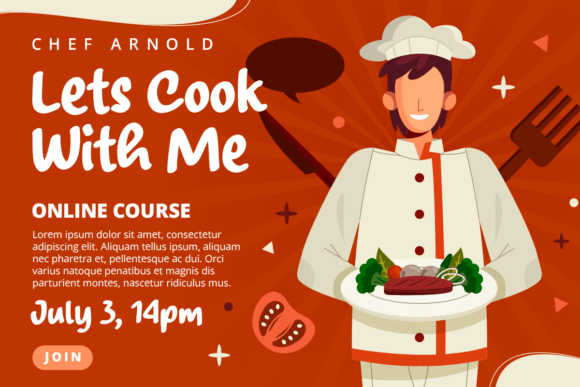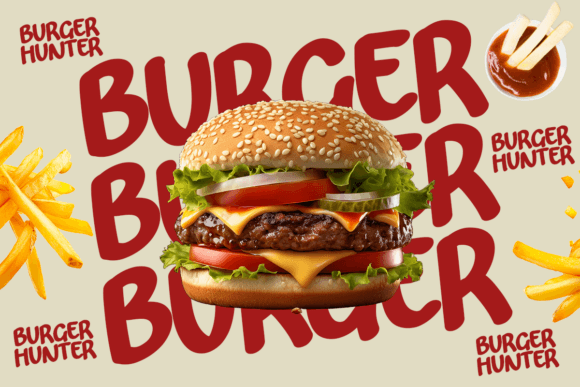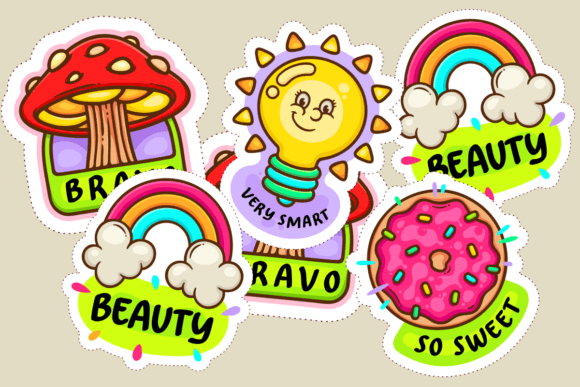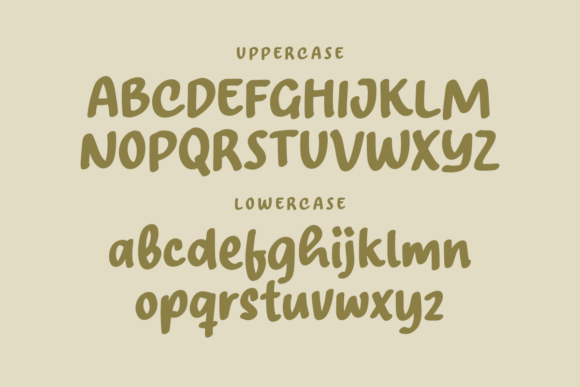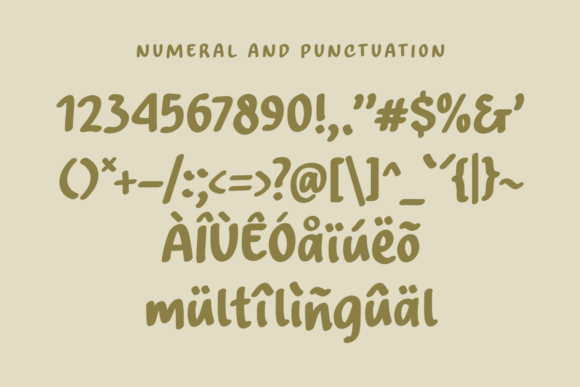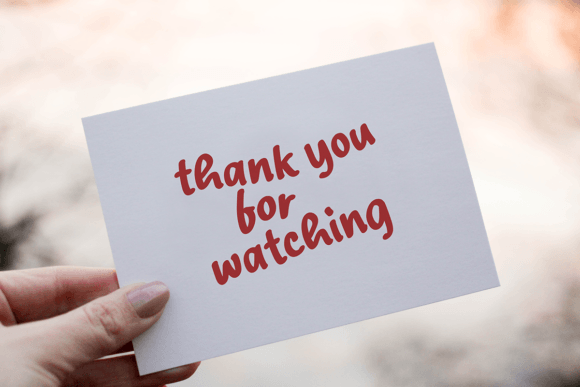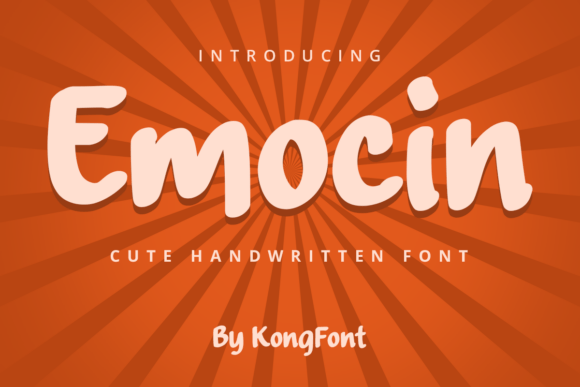
Introducing Emocin Font: A Stylish and Nostalgic Typeface for Retro-Inspired Designs
Are you a designer or crafter looking for a font that embodies the essence of retro aesthetics? Look no further than Emocin Font, a beautiful and nostalgic typeface that is perfect for creating vintage-themed designs, posters, logos, branding, invitations, and more. With its smooth script style and elegant curves, Emocin Font brings a timeless charm to any project, making it a must-have for anyone who wants to add a touch of nostalgia to their designs.
What is Emocin Font?
Emocin Font, also known as Emocin Script Retro Font, is a stylish and elegant typeface that is inspired by the retro aesthetics of the past. Its smooth script style and flowing curves evoke a sense of nostalgia and sophistication, making it perfect for designs that require a touch of vintage charm. Whether you’re creating a poster, logo, or invitation, Emocin Font is the perfect choice for adding a touch of elegance and sophistication to your design.
Key Features of Emocin Font
Emocin Font comes with a range of features that make it a versatile and practical choice for designers and crafters. Some of its key features include:
- Multilingual Support: Emocin Font supports multiple languages, making it a great choice for designers who work with clients from around the world.
- PUA Encoding: Emocin Font is PUA encoded, which means that you can access all of the cute glyphs and swashes with ease.
- Elegant Curves: Emocin Font features smooth, flowing curves that give it a timeless and elegant look.
Uses for Emocin Font
Emocin Font is a versatile typeface that can be used for a wide range of design projects. Some of the most popular uses for Emocin Font include:
- Vintage-Themed Designs: Emocin Font is perfect for creating vintage-themed designs, such as posters, logos, and branding materials.
- Invitations and Stationery: Emocin Font is a great choice for creating invitations, stationery, and other paper goods.
- Logos and Branding: Emocin Font can be used to create elegant and sophisticated logos and branding materials.
- Posters and Flyers: Emocin Font is perfect for creating eye-catching posters and flyers.
Why Choose Emocin Font?
So why choose Emocin Font for your design projects? Here are just a few reasons:
- Unique and Elegant Design: Emocin Font features a unique and elegant design that will set your projects apart from the crowd.
- Highly Versatile: Emocin Font can be used for a wide range of design projects, from vintage-themed designs to logos and branding materials.
- Easy to Use: Emocin Font is PUA encoded, making it easy to access all of the cute glyphs and swashes.
- Multilingual Support: Emocin Font supports multiple languages, making it a great choice for designers who work with clients from around the world.
In conclusion, Emocin Font is a stylish and nostalgic typeface that is perfect for designers and crafters who want to add a touch of retro charm to their designs. With its smooth script style, elegant curves, and versatile features, Emocin Font is a must-have for anyone who wants to create vintage-themed designs, posters, logos, branding materials, and more. So why wait? Download Emocin Font today and start creating beautiful, nostalgic designs that will leave a lasting impression on your clients and audience.